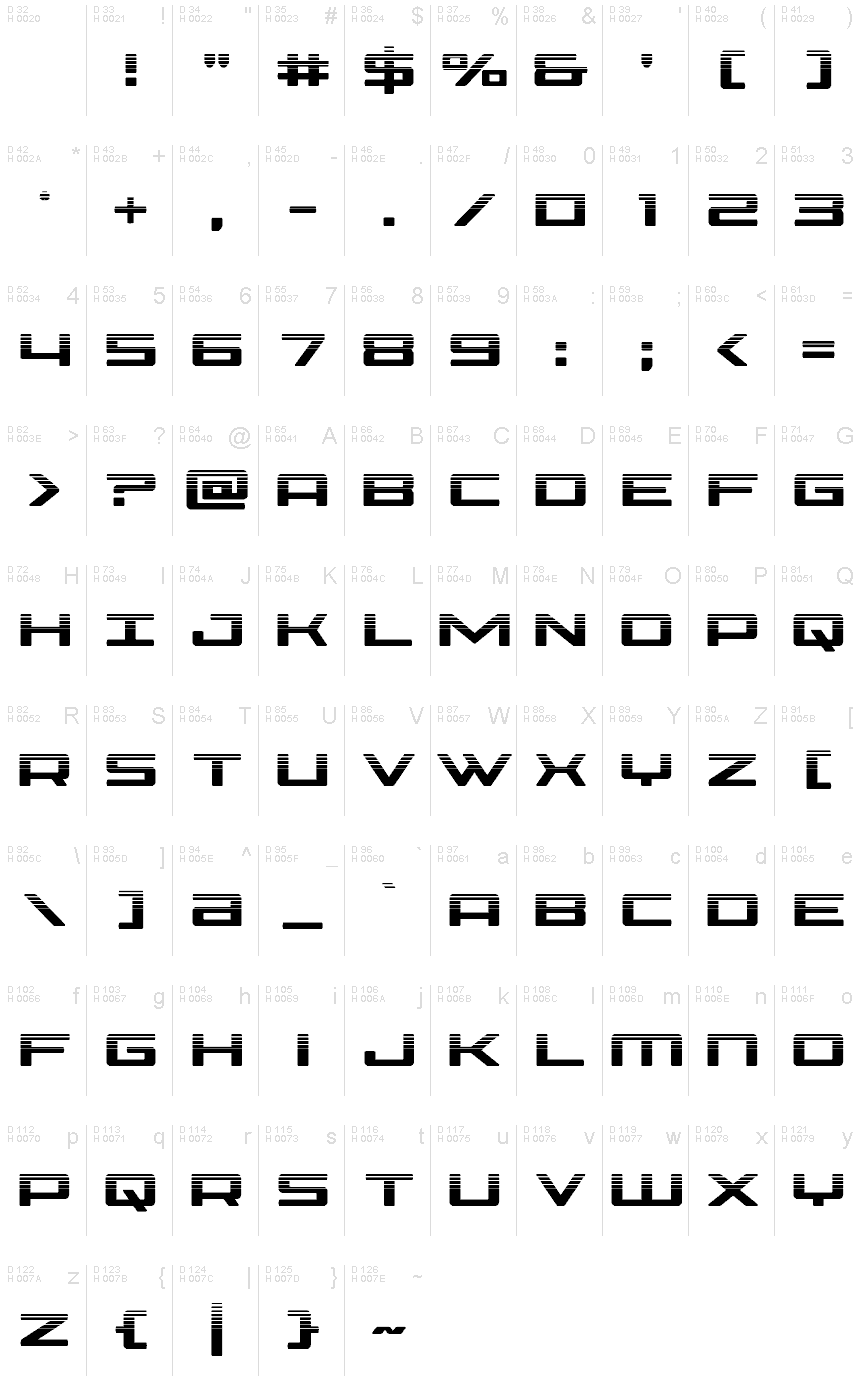
Phoenicia Halftone
Phoenicia Halftone is a captivating display font that exudes a distinct techno-inspired aesthetic. Designed by Daniel Zadorozny, this expanded font showcases a striking halftone effect that adds depth and visual interest to any design.
With its bold, angular forms and impactful presence, Phoenicia Halftone is well-suited for attention-grabbing headers, eye-catching titles, and futuristic branding applications. Its expanded width lends a sense of strength and authority, making it an excellent choice for conveying a powerful, industrial-inspired message.
This versatile font can seamlessly transition between digital and print media, lending a cutting-edge, high-tech vibe to a wide range of design projects.